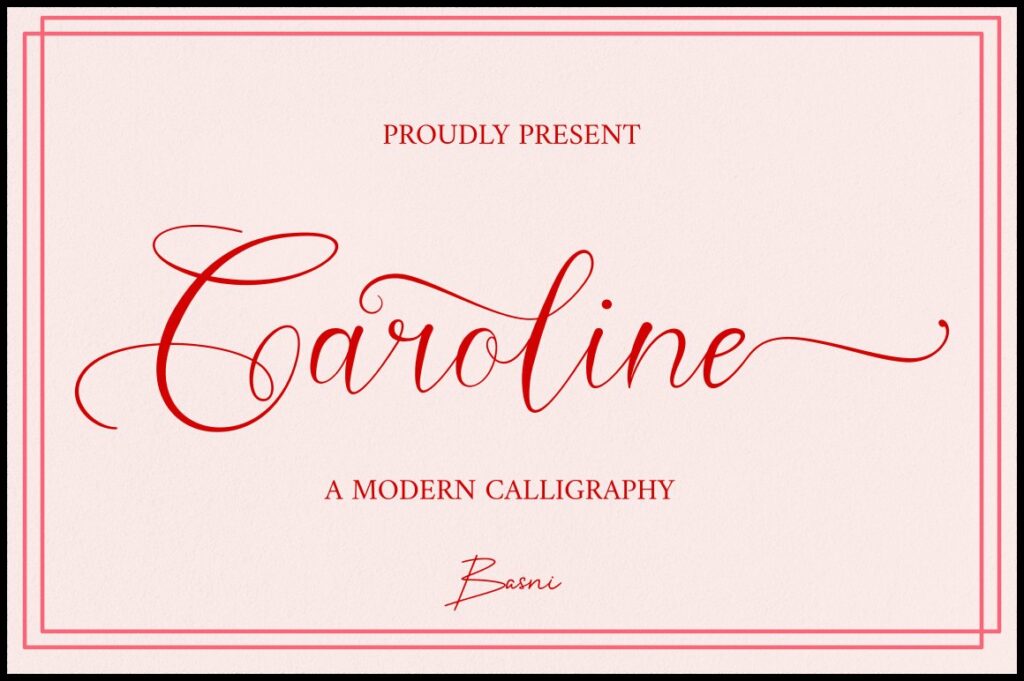
Caroline Font
Caroline, a modern calligraphy font, Caroline is perfect for invitations, branding, websites, red wine labels, and editorial designs. Includes all upper and lower case letters, multilingual support, punctuation, binding and initial and final swash.
Caroline Modern Calligraphy Font